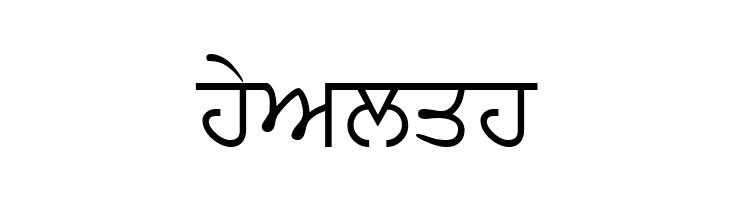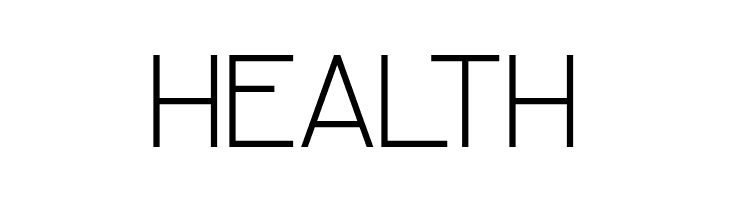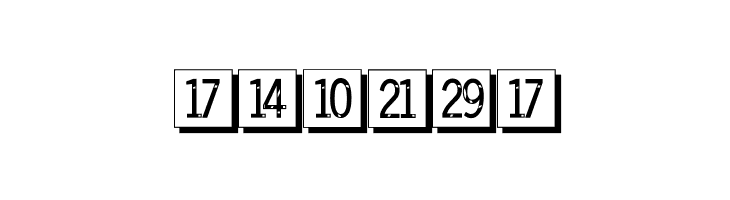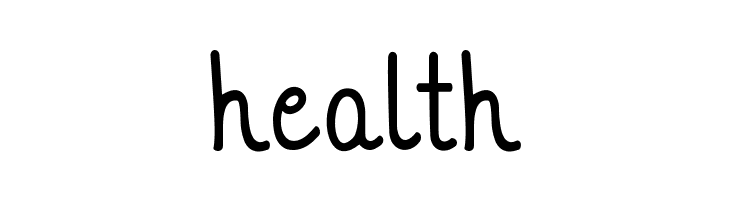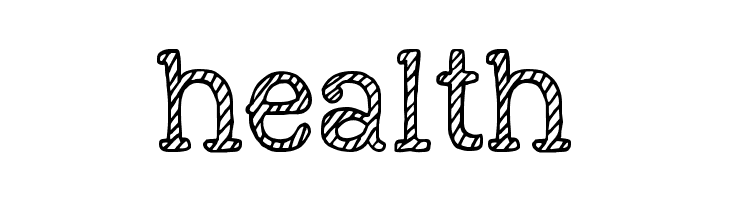
Stretch Pro Font
A bold, modern font with wide, evenly spaced characters and geometric precision.
Bamboo Font
A classic serif font with elegant strokes and moderate contrast.
Nastaliqh Font
A cursive, calligraphic font with elegant curves and a dynamic style.
Santanelli-PERSONAL-USE-ONLY Font
A geometric and modern font with decorative line elements.
Pixel Font-7 Font
A pixelated font with a retro, digital aesthetic, ideal for tech-themed designs.
Some Weatz Symbols Font
An elegant and ornate script font with flowing, decorative letterforms.
Tryst-Regular Font
A classic serif font with elegant curves and medium contrast, perfect for formal and sophisticated designs.
KG Next to Me Sketched Font
A playful, hand-drawn font with a sketched, rope-like appearance.
Drunk Heavy Font
A playful and whimsical font with bold, irregular letterforms.
KG Next to Me Solid Font
A playful, rounded font with a hand-drawn appearance.
Document Two Font
A modern, geometric sans-serif font with bold, clean lines.
Triumph wheels rough Font
A bold, decorative font with vintage flair and ornate details.
Goudy Bookletter 1911 TT Regular Font
A classic serif typeface with elegant proportions and moderate contrast.
KG Next to You Solid Font
A playful, rounded font with consistent stroke width and a friendly appearance.
RElapse Regular Font
A bold, brush-style font with a dynamic, hand-painted appearance.
KG Next to You Sketched Font
A playful, hand-drawn font with a sketched, rope-like texture.
KG A Thousand Years Font
A playful handwritten font with a casual and friendly style.
PunjabiText Font
A traditional Gurmukhi script font with elegant, flowing lines and balanced stroke weight.
Beautifully Font
A cursive, handwritten font with elegant, flowing strokes.
Gary Downley Script PERSONAL Regular Font
An elegant script font with flowing lines and decorative swashes.
HalloweeninAutumnSans Font